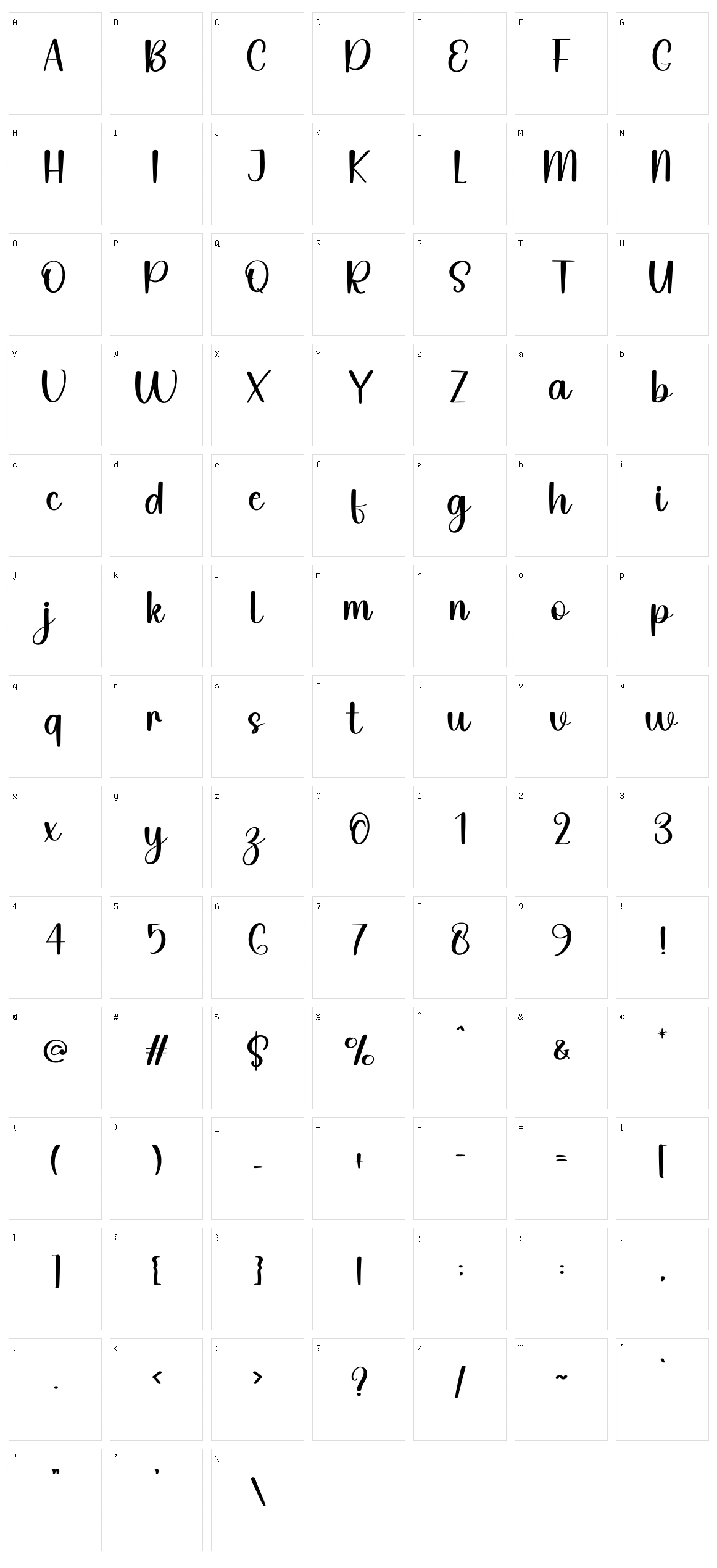
The free font Backend is carefully designed by Inermedia Studio, showcasing a thoughtful balance of creativity and usability and falls under the Script font style. When you download the ZIP file, it contains only 54.5 KB of font files, making it lightweight and quick to download. Please review the license details below to understand permitted usage and distribution rights. If license information is not available, we recommend using this font for personal projects only or contacting the author directly for commercial usage permissions.